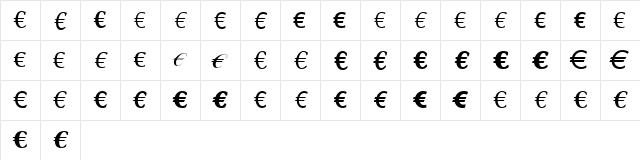
Linotype EuroFont R to S Regular
Design Context for Linotype EuroFont R to S Typeface
Linotype EuroFont R to S offers clean, dependable letterforms without strong stylistic allegiance, making it a practical choice for designers who need flexibility.